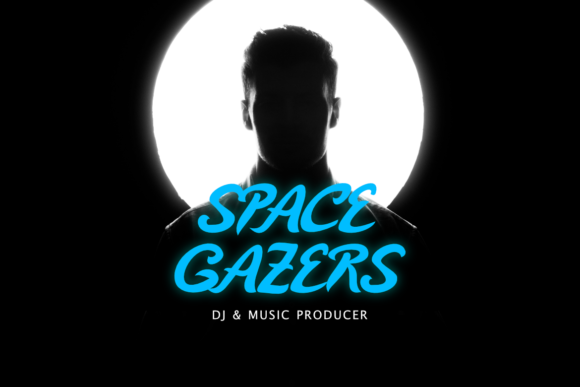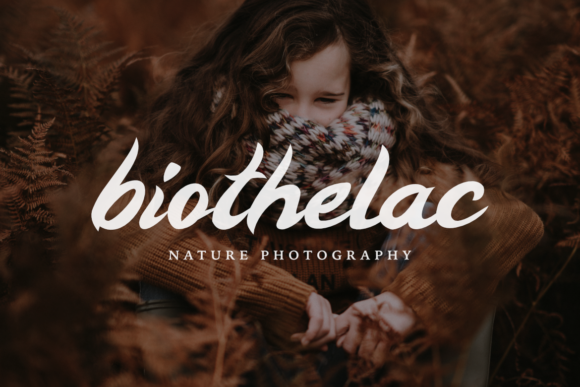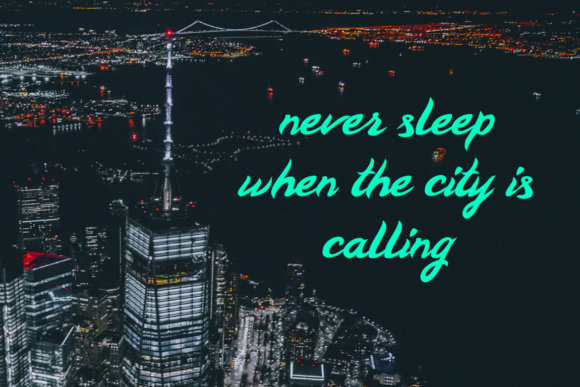
Introduction to Jump Force Font
Jump Force is a fun and bold display font that will effortlessly turn any creative project into a true stand out.
Jump Force is a fun and bold display font that will effortlessly turn any creative project into a true stand out!
Key Features of Jump Force Font
Why Choose Jump Force Font?
Jump Force Font offers exceptional quality and versatility, making it a valuable addition to your design toolkit. Whether you’re creating for personal projects or commercial use, Jump Force Font delivers professional results.